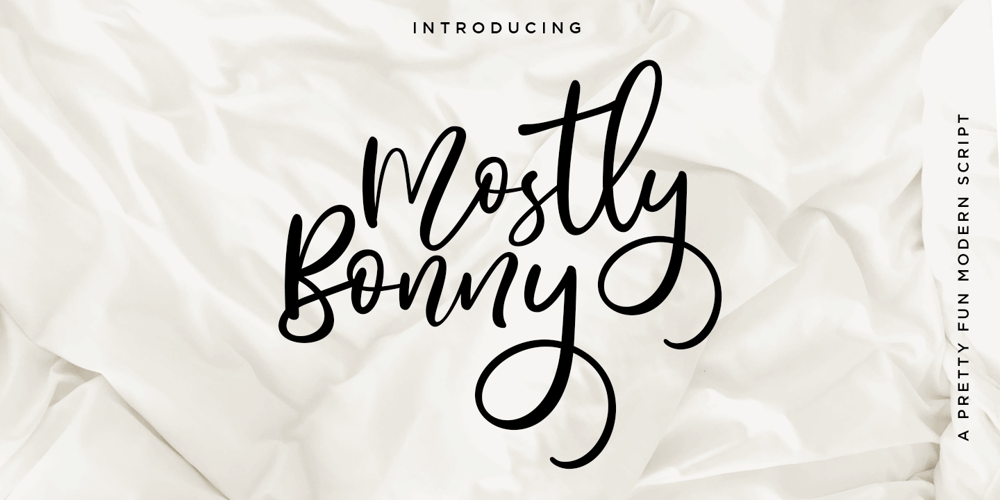
Mostly Bonny Font Family was designed by Sarwo Edhi Prayitno and published by Haksen. Mostly Bonny contains 2 styles and family package options. Introduce my New Product “Bonny” The new fresh handmade script font. Very suitable for greeting cards, branding materials, business cards, quotes, posters, and more!These fonts are perfect for all brand :)Features :- UpperCase & Lowercase Numerals & Punctuations- Ligatures Multilingual characters (AÀÁÂÃÄÅCÇDÐEÈÉÊËIÌÍÎÏNÑOØÒÓÔÕÖUÙÜÚÛWYÝŸŸÆŒßÞàáâãäåæçèéêëìíîïðñòóôõöøùúûüýÿ)PUA ENCODEDZIP INCLUDEDThanks for visited and Please contact me if you have any questions.My Best,Haksen